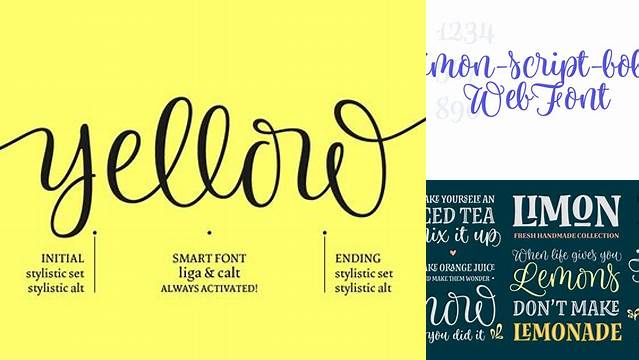
Introduction: Discover the Charm of Limon Script
Hey guys! Are you on the hunt for that perfect font to add a touch of elegance and personality to your designs? Well, look no further! Let's dive into the world of Limon Script, a delightful typeface that can truly elevate your creative projects. In this article, we're going to explore everything you need to know about Limon Script, including its unique features, where you can find a limon script font free download, and how to best use it in your designs. Whether you're a seasoned designer or just starting out, understanding the nuances of this font will help you create stunning visuals that captivate your audience. The Limon Script font is more than just a typeface; it’s a tool that brings a sense of warmth and sophistication to any project. Its flowing lines and graceful curves make it an ideal choice for invitations, logos, branding materials, and much more. Imagine the impact of a beautifully crafted wedding invitation or a stylish business card, all enhanced by the distinctive flair of Limon Script. It's not just about aesthetics; it's about creating an emotional connection with your audience, and the right font can play a crucial role in achieving that. So, let’s embark on this journey to uncover the magic of Limon Script and how you can harness its potential to bring your creative visions to life.
What Makes Limon Script So Special?
So, what makes Limon Script stand out from the crowd? It’s all about the details! This font boasts a unique blend of modern and classic elements, making it incredibly versatile. Its flowing, cursive style exudes a sense of handwritten elegance, perfect for projects that need a personal touch. But it's not just about looking pretty; Limon Script is also designed with readability in mind. The spacing and letterforms are carefully crafted to ensure that your message is clear and easy to read, whether it's on a screen or in print. One of the key characteristics of Limon Script is its delicate yet strong personality. The strokes vary in thickness, creating a dynamic rhythm that draws the eye and adds visual interest. This variation gives the font a lively and engaging feel, setting it apart from more static typefaces. Think of it as the difference between a formal, structured garden and a wild, blooming meadow – both beautiful in their own right, but with very different energies. Another aspect that makes Limon Script special is its versatility across different mediums. It shines in both digital and print formats, making it a reliable choice for a wide range of projects. Whether you're designing a website, a brochure, or a social media graphic, Limon Script can adapt seamlessly to your needs. It's this adaptability, combined with its distinctive aesthetic, that makes it a favorite among designers. Plus, let’s be honest, finding a font that looks both elegant and approachable is a rare gem, and Limon Script nails that balance perfectly. So, if you're looking for a font that can add a touch of sophistication without feeling stuffy, Limon Script might just be your new best friend.
How to Use Limon Script in Your Designs
Alright, you've got your hands on Limon Script – now what? Let's talk about how to use this gorgeous font effectively in your designs. The first thing to keep in mind is context. Limon Script shines in situations where you want to convey elegance, warmth, or a personal touch. Think wedding invitations, greeting cards, logos for small businesses, and branding materials for creative professionals. Its flowing style makes it perfect for headlines, titles, and short blocks of text where you want to make a statement. However, it's generally not the best choice for large blocks of body text, as its cursive nature can become tiring to read over long stretches. When using Limon Script, pay attention to the spacing between letters and words. Because it's a script font, the letters are designed to connect fluidly, but sometimes you may need to adjust the kerning (the space between individual letters) to ensure a smooth and balanced look. This is especially important when using Limon Script in logos or other branding materials where precision is key. Experiment with different weights and styles if available. Some font families come with variations like bold or italic, which can add depth and visual interest to your designs. Use these variations sparingly and strategically to highlight key words or phrases. Color is another important factor to consider. Limon Script looks stunning in a variety of colors, but it especially shines when paired with elegant, muted tones like gold, silver, or blush. Consider the overall mood and aesthetic you're trying to create and choose colors that complement the font's personality. Think about pairing Limon Script with a simpler, sans-serif font for body text. This creates a nice contrast and ensures that your design is both visually appealing and easy to read. A classic combination is Limon Script for headings and a clean, modern font like Helvetica or Arial for the body. Finally, don't be afraid to experiment! The best way to learn how to use a font effectively is to play around with it and see what works. Try different combinations, sizes, and styles, and trust your instincts. With a little practice, you'll be able to harness the full potential of Limon Script and create designs that truly shine.
Tips and Tricks for Working with Script Fonts
Working with script fonts like Limon Script can be a delightful experience, but it also comes with its own set of challenges. To help you navigate the world of script typography, here are some handy tips and tricks to keep in mind. First and foremost, always consider readability. While script fonts are beautiful, they can sometimes be difficult to read, especially in smaller sizes or longer blocks of text. Before you commit to using a script font, make sure your message is clear and legible. If you're using Limon Script for a headline, try increasing the font size and adding some letter spacing to improve readability. In general, it's best to reserve script fonts for headings, logos, and other short pieces of text where you want to make a statement. For body text, opt for a simpler, more legible font like a sans-serif or a serif. Pair your script font carefully. The font you choose to pair with Limon Script can have a big impact on the overall look and feel of your design. A classic combination is to pair a script font with a clean, modern sans-serif. This creates a nice contrast and helps to balance the elegance of the script with the simplicity of the sans-serif. Avoid pairing multiple script fonts together, as this can create a cluttered and overwhelming effect. Pay attention to kerning and leading. Kerning is the space between individual letters, and leading is the space between lines of text. These factors can have a big impact on the readability of your script font. If the letters are too close together, the text will look cramped and difficult to read. If they're too far apart, the text will look disjointed. Similarly, if the lines of text are too close together, the text will look crowded. If they're too far apart, the text will look disconnected. Experiment with different kerning and leading values to find the sweet spot. Use script fonts sparingly. A little bit of script font can go a long way. If you overuse script fonts, your design can start to look cluttered and overwhelming. Instead, use script fonts strategically to highlight key words or phrases. Finally, don't be afraid to break the rules! These tips are meant to be helpful guidelines, but ultimately, the best way to learn how to use script fonts effectively is to experiment and see what works. Try different combinations, sizes, and styles, and trust your instincts. With a little practice, you'll be able to master the art of script typography and create designs that are both beautiful and effective.
Conclusion: Embrace the Elegance of Limon Script
So, there you have it! Everything you need to know about Limon Script and how to find a limon script font free download. This elegant typeface is a fantastic addition to any designer's toolkit, offering a unique blend of sophistication and personality. Whether you're crafting wedding invitations, designing a logo, or simply looking to add a touch of flair to your projects, Limon Script is a versatile choice that won't disappoint. Remember, the key to using any font effectively is to understand its strengths and limitations. Limon Script shines when used for headings, titles, and short bursts of text where you want to convey elegance and warmth. It pairs beautifully with simpler fonts for body text, creating a balanced and visually appealing design. And while finding a limon script font free download might take a bit of searching, the effort is well worth it. There are plenty of reputable sources online where you can find free fonts that are similar in style and quality. Just be sure to double-check the licensing terms before you use the font in any commercial projects. Ultimately, the best way to master the art of typography is to experiment and have fun! Play around with different fonts, sizes, and styles, and discover what works best for you. With a little practice and creativity, you'll be able to create stunning designs that capture attention and communicate your message effectively. So go ahead, embrace the elegance of Limon Script and let your creativity flow! Whether you’re a seasoned designer or just starting out, this font is sure to become a go-to choice for adding that perfect touch of sophistication to your work. Happy designing, guys!